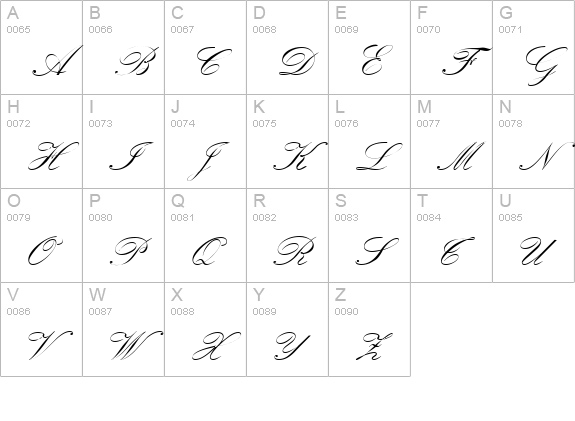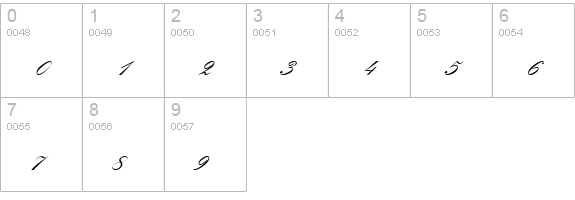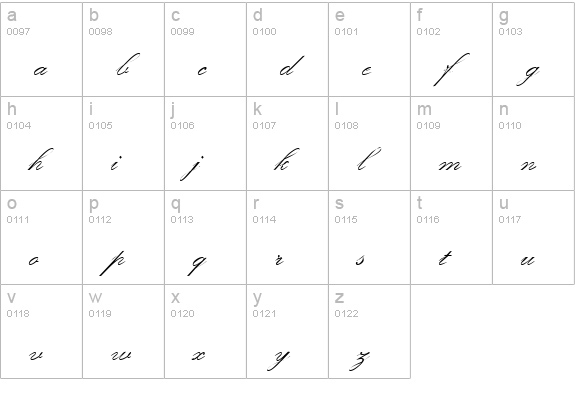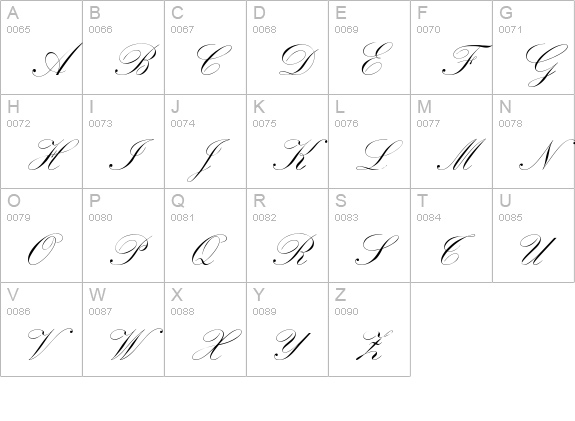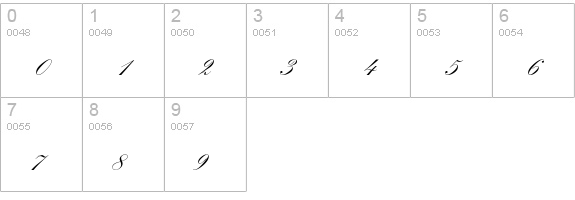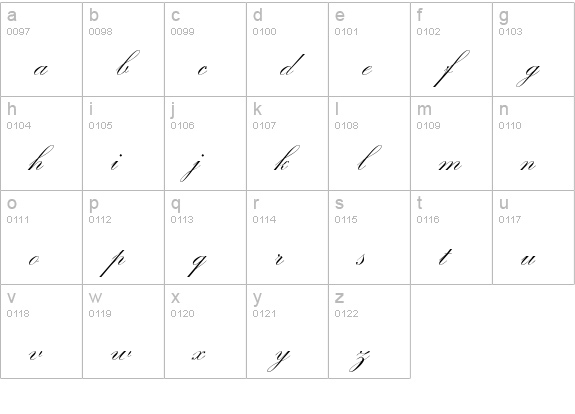
KremlinScriptTwo-Regular Font Details
KremlinScriptTwo-Regular is the standard, neutral variant in the KremlinScriptTwo typeface family \xE2\x80\x94 well suited to general body text, paragraphs, and standard typographic work.
KremlinScriptTwo-Regular is a beautifully crafted font that exudes elegance and sophistication. Its intricate script style adds a touch of charm and grace to any design project. With its smooth lines and fluid strokes, this font is perfect for adding a touch of luxury to invitations, branding, packaging, and more. The best part? KremlinScriptTwo-Regular is available for free download at FontsMarket.com. That's right, you can elevate your designs with this stunning font without breaking the bank. So why wait? Download KremlinScriptTwo-Regular today and add a touch of timeless beauty to your projects.